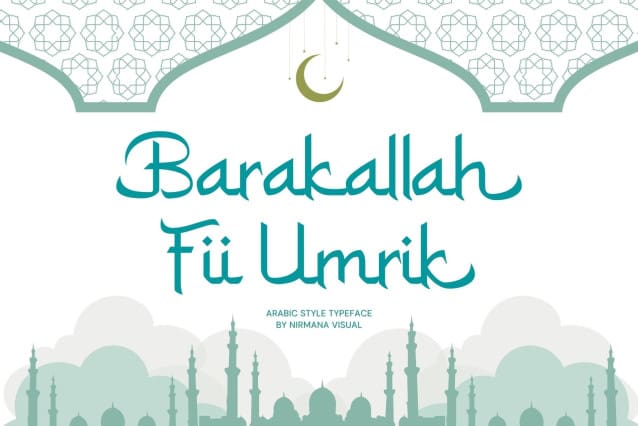
Barakallah Fii Umrik Font
Barakallah Fii Umrik Font, inspired by Arabic Calligraphy. Beautiful typographic harmony for a diversity of design projects, including logos & branding, social media posts, advertisements & product designs.